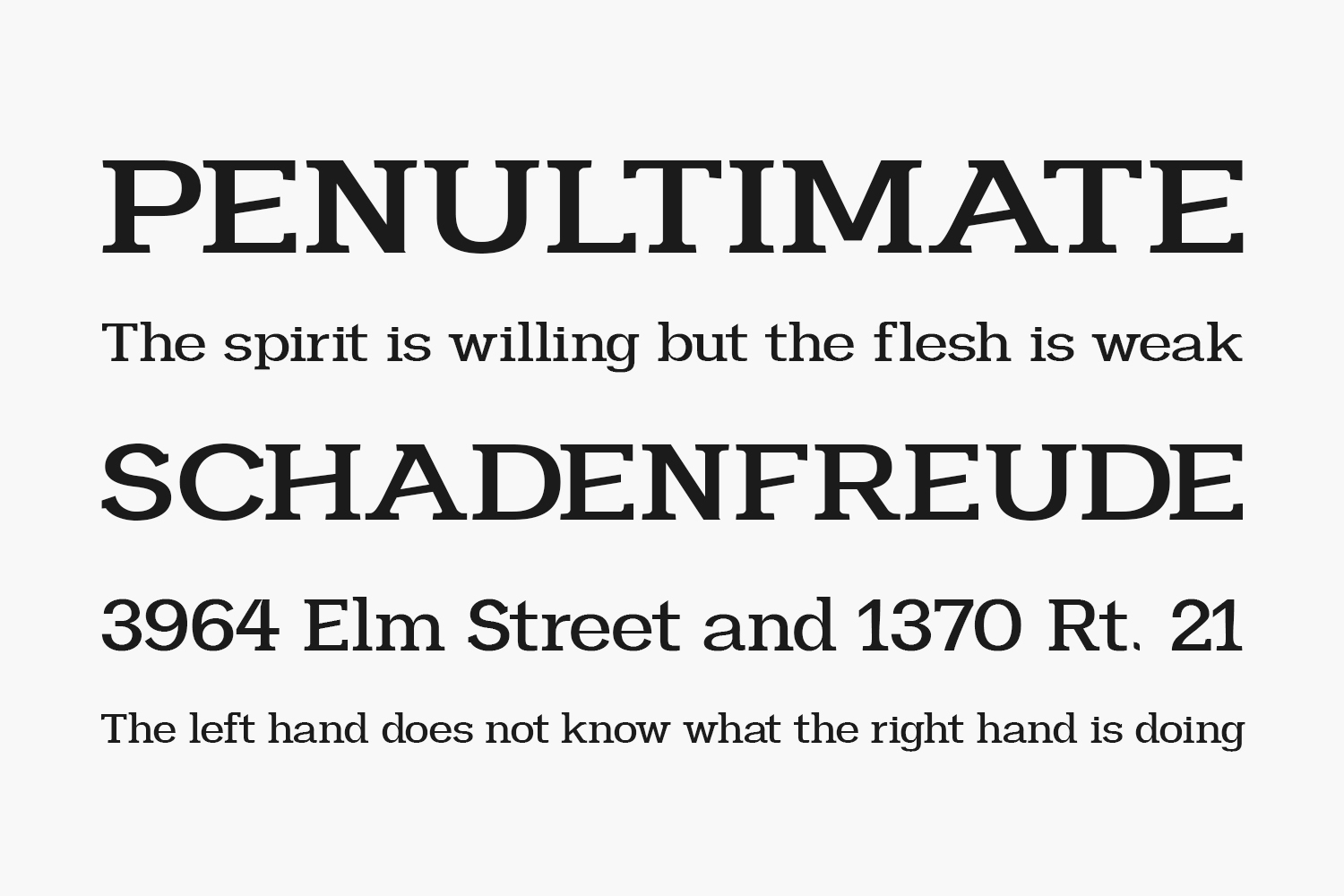
Heliony Free Font is a classic font with a strong personality design to work well in both titles and long text. This is a demo version for personal use only. Some important glyphs are not included in the demo version.
Designed by Goicha